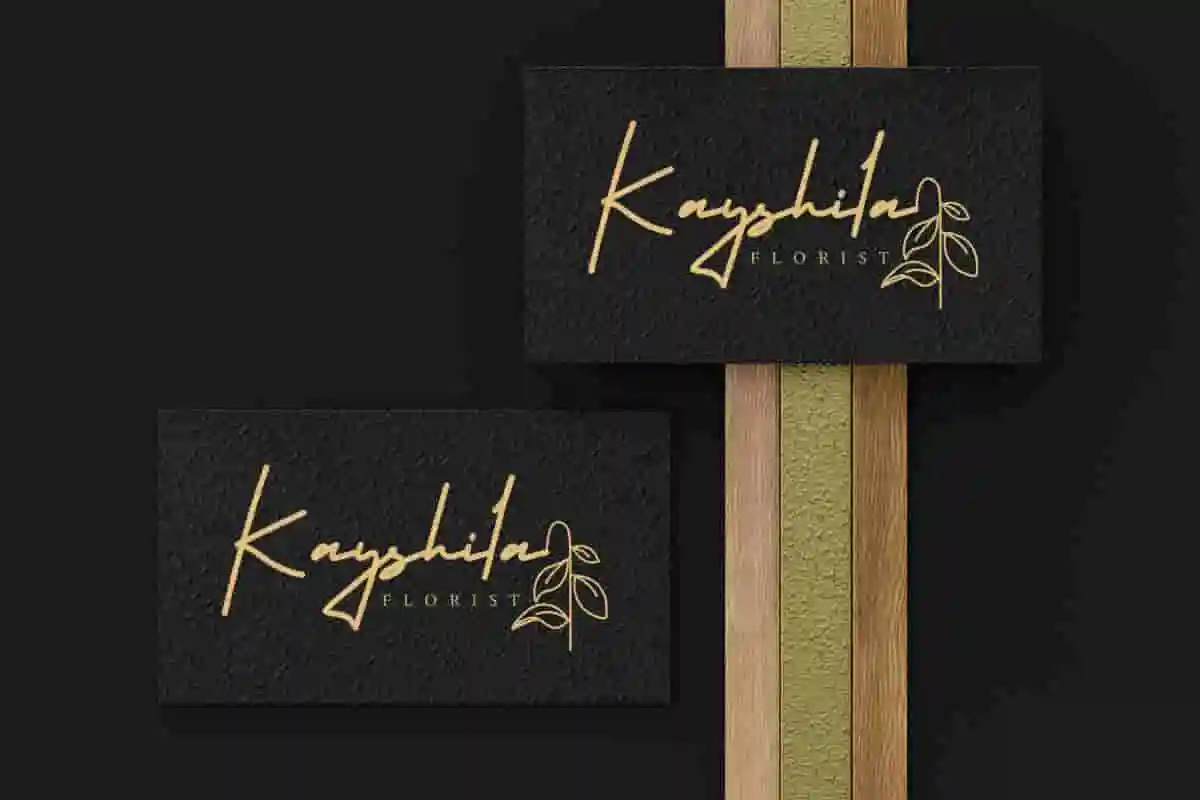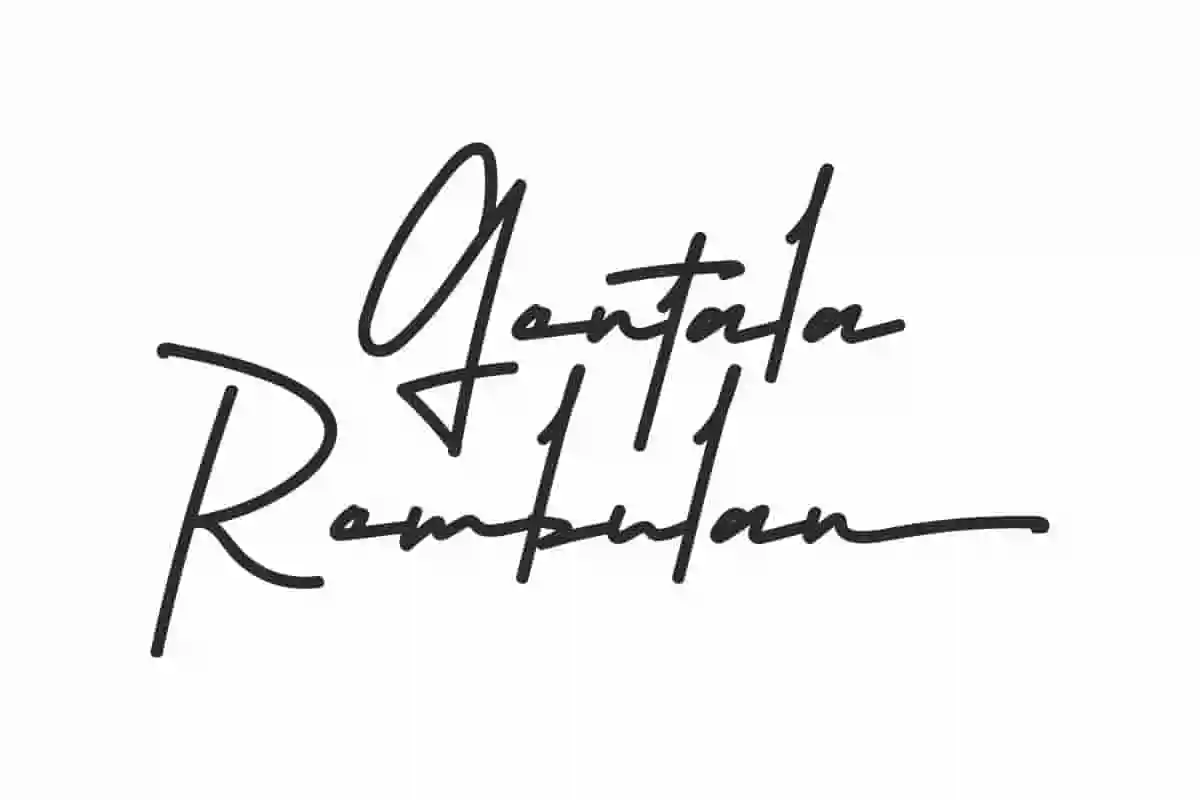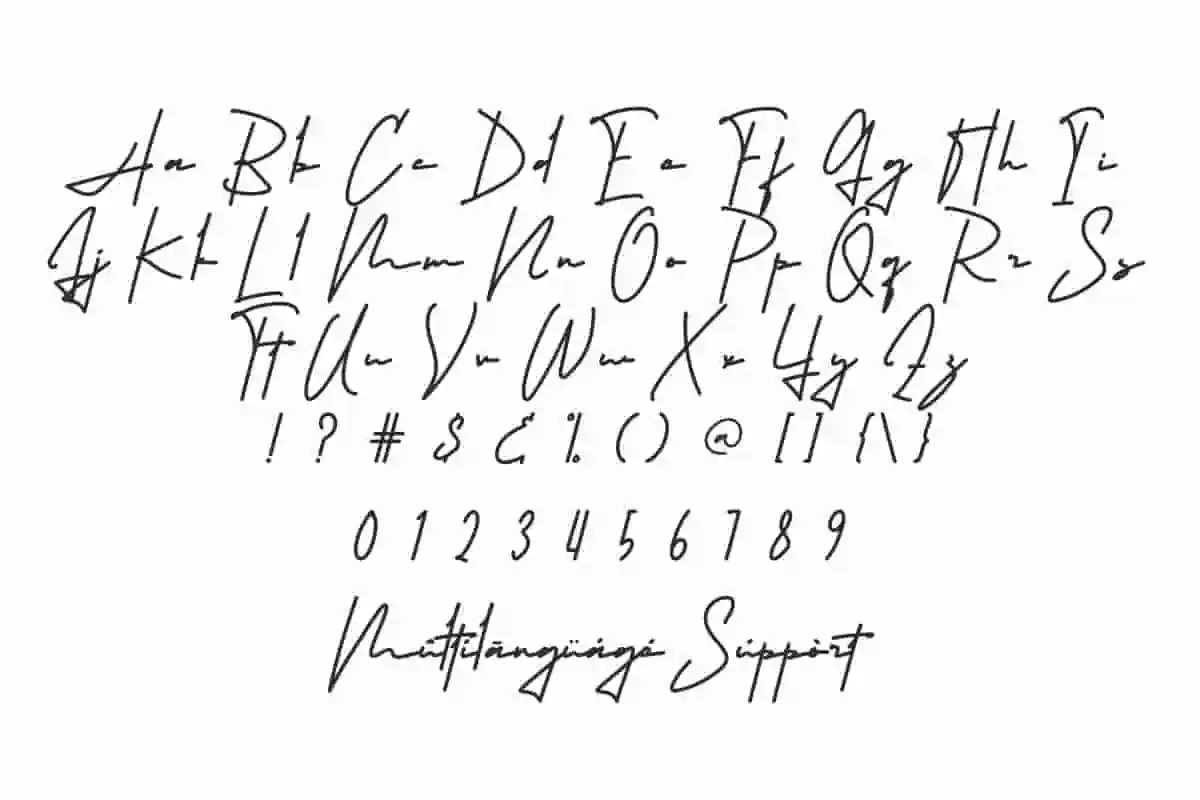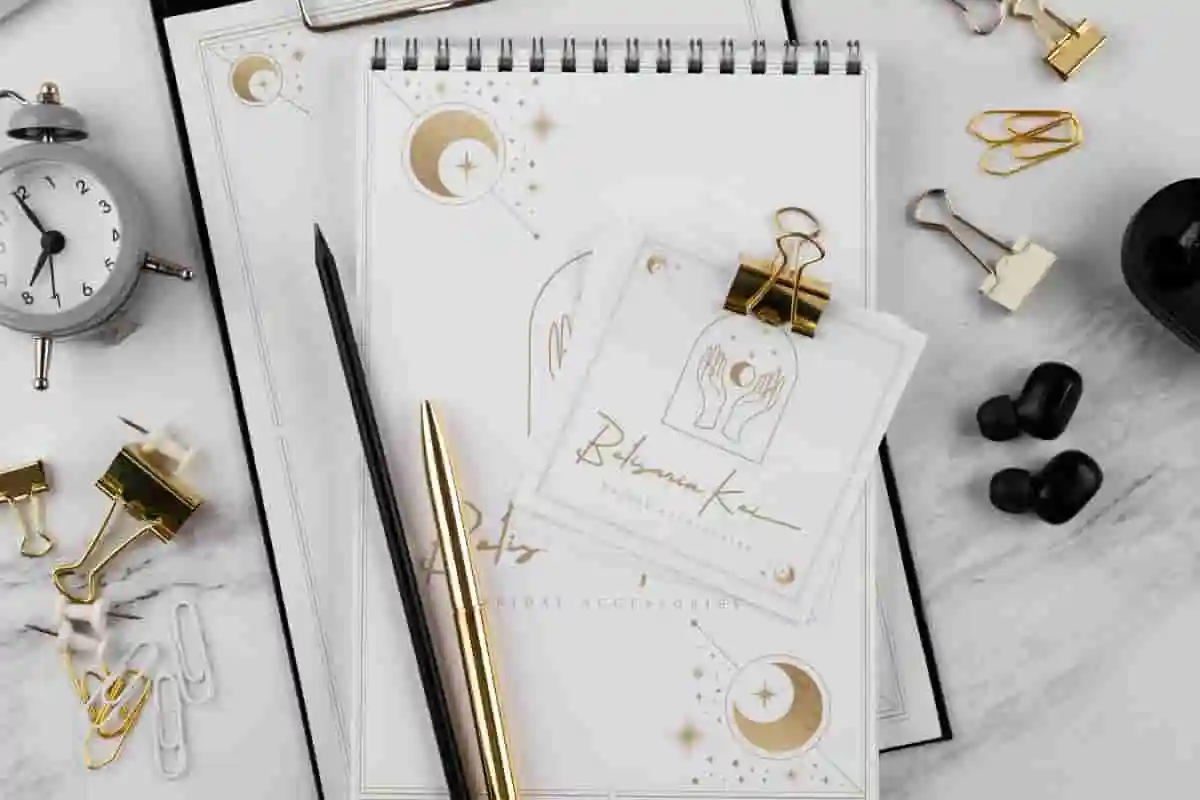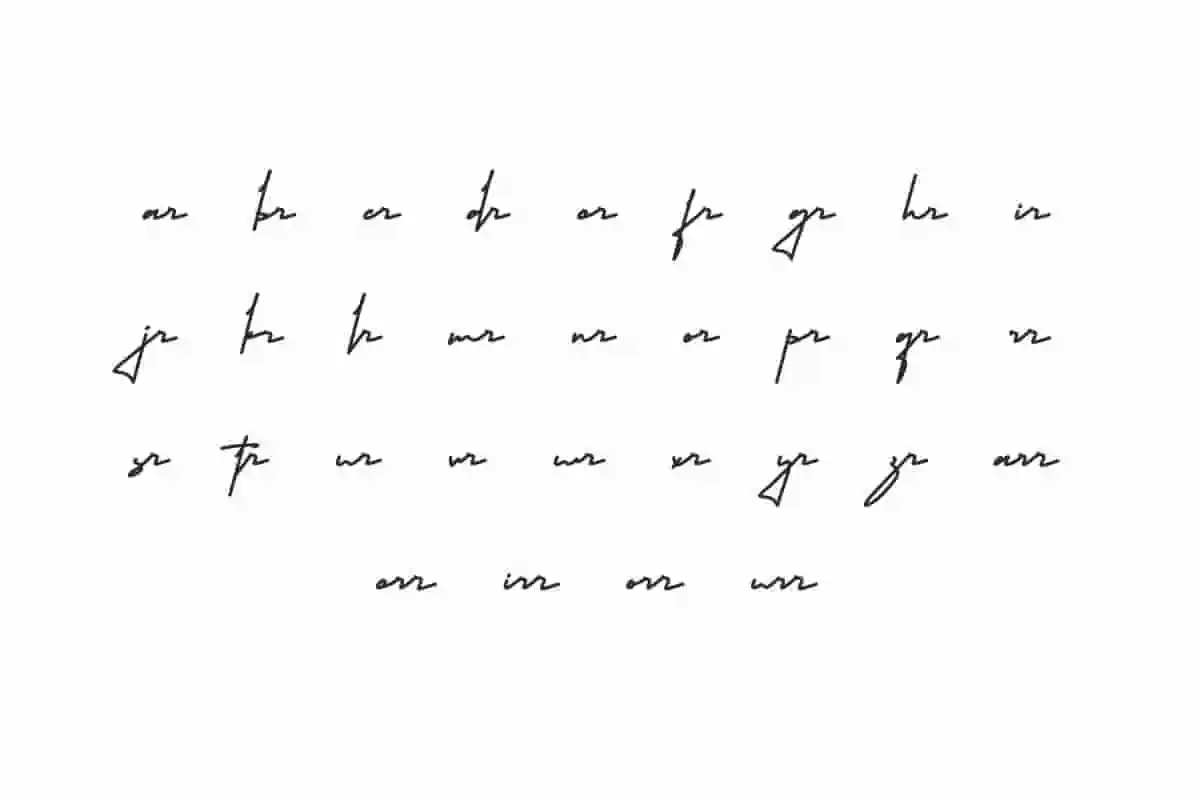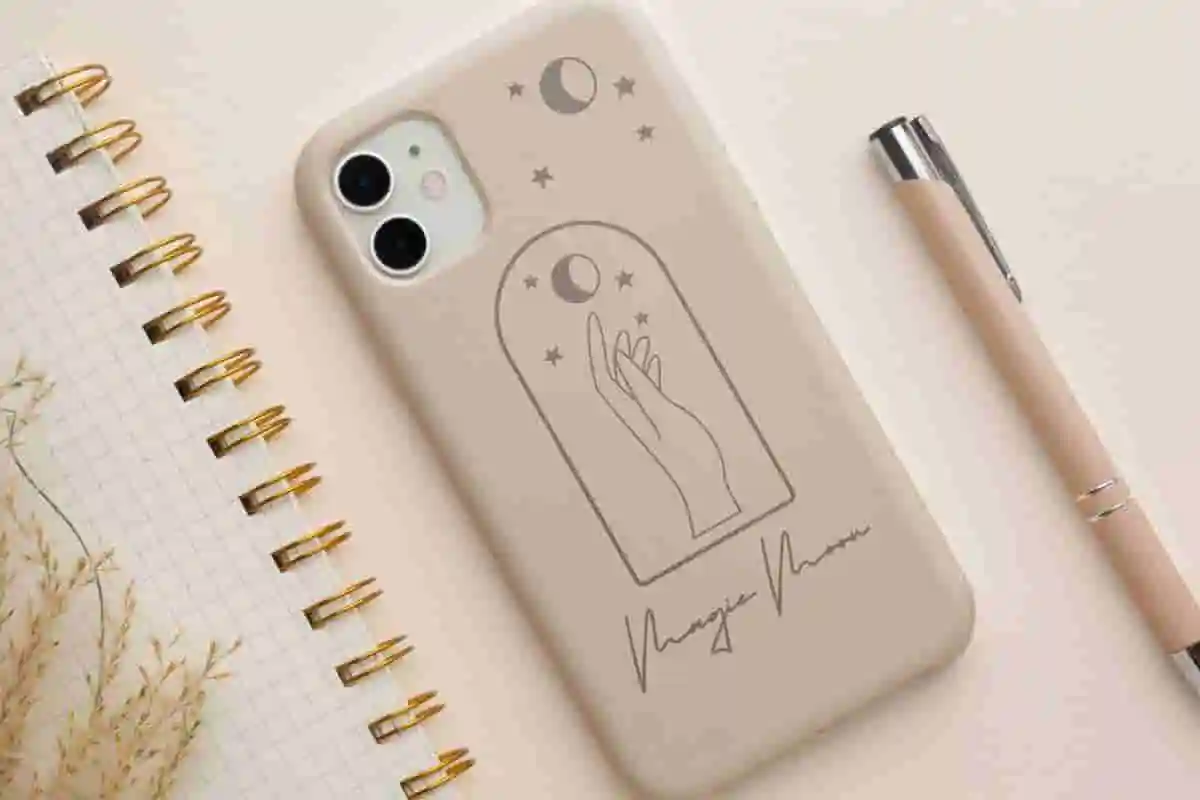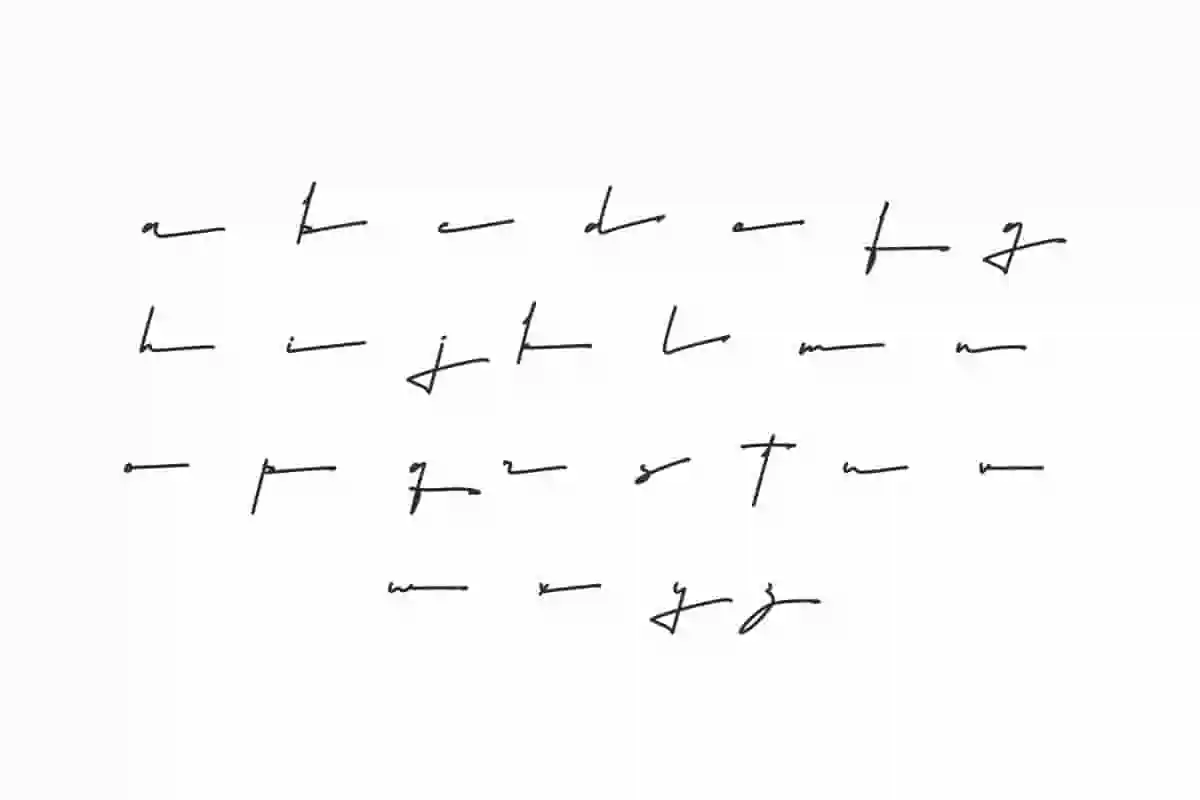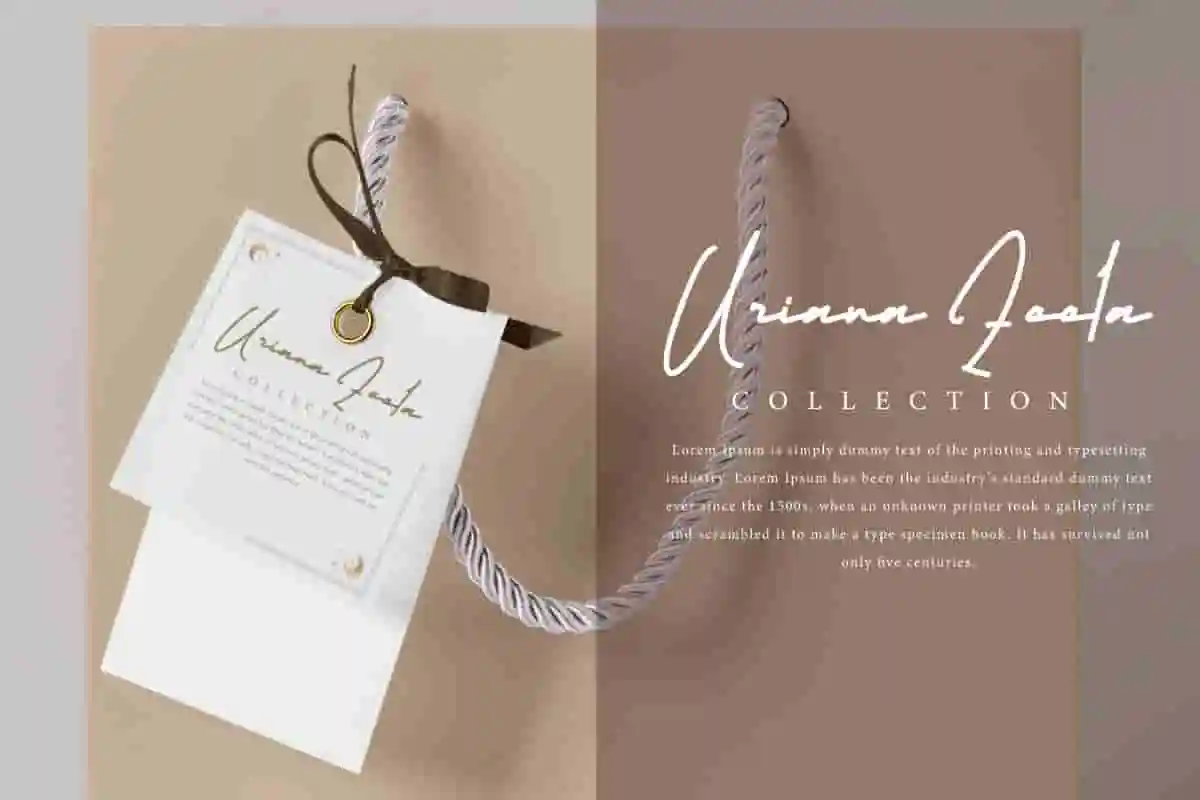
Gentala Rembulan Font
Gentala Rembulan Font is a bold  professional handwriting signature font with a classy look. Great for many businesses: artist, florist, designers, wedding, photographer etc
Gentala Rembulan Font is a bold  professional handwriting signature font with a classy look. It has a monoline style i.e. the letters are slender and soaring just like the signature type, making it eye-catching and can elevate your project, such as brand logo, brochure, business card, catalog, cover, embossed design, invitation, greeting cards, label, screen print, signage, stationery, sticker, title, watermark, website, and many more!
Gentala Rembulan Font comes with a full set of Uppercase and Lowercase Basic Characters, Number, Punctuation, Symbol. It is also equipped with Ligature and Alternate characters to add aesthetic value to the font. Use this for your business industry such as accessories, architect, bridal boutique, event organizer, florist, furniture, handicrafts, photography, printing, publishing, real estate, restaurant, skincare, spa salon, wedding, writer, etc.